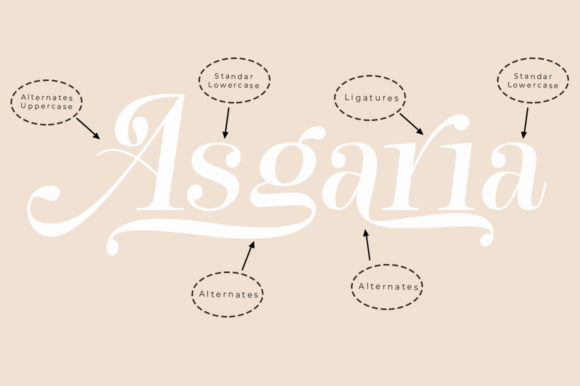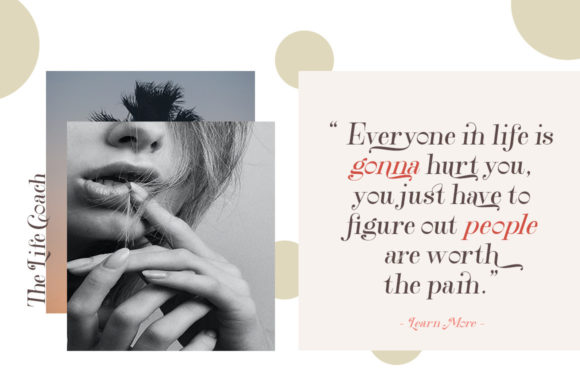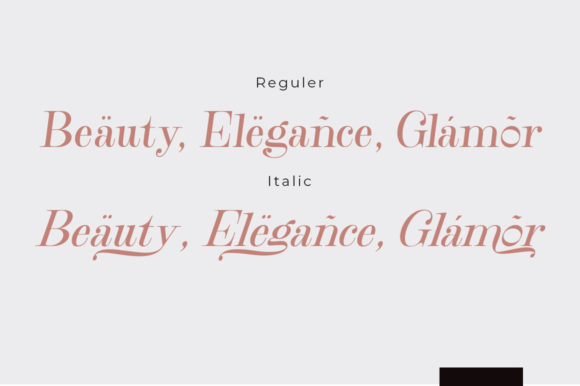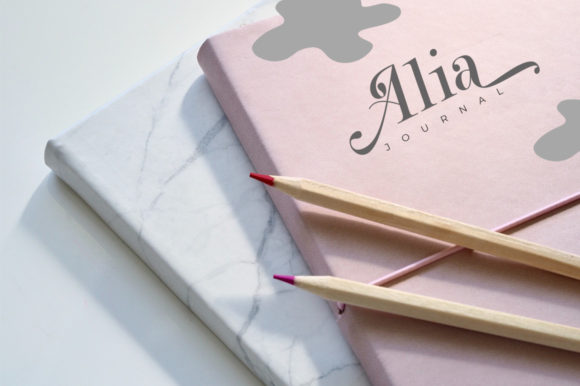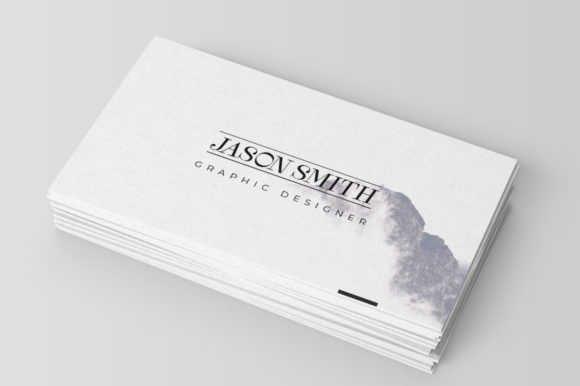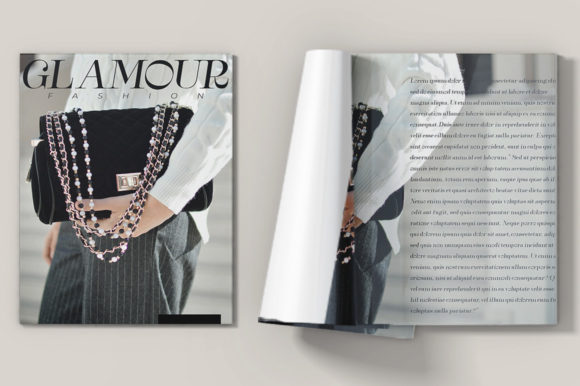
Introducing Asgaria Font: Elevate Your Designs with Elegance and Sophistication
In the world of typography, the right font can make all the difference in transforming a design from ordinary to extraordinary. For designers and crafters seeking a stylish and clean serif font that adds a touch of elegance and sophistication to their projects, Asgaria Font is an exceptional choice. This beautifully crafted font is not only aesthetically pleasing but also highly functional, making it a valuable addition to any designer’s toolkit.
What Makes Asgaria Font Stand Out?
Asgaria Font is a stylish and clean serif font that boasts a unique blend of classic elegance and modern sophistication. Its well-defined serifs and balanced letterforms make it perfect for a wide range of design applications, from luxury branding and high-end magazines to elegant wedding invitations and sophisticated digital interfaces.
PUA Encoding for Easy Access to Glyphs and Swashes
One of the key features that sets Asgaria Font apart is its PUA (Private Use Area) encoding. This means that users can access all glyphs and swashes with ease, allowing for greater flexibility and creativity in design. With PUA encoding, you can effortlessly insert special characters, ligatures, and swashes into your text, giving your designs a unique and personalized touch.
Why Choose Asgaria Font for Your Projects?
There are several reasons why Asgaria Font should be your go-to choice for your design projects:
- Versatility: Asgaria Font is suitable for a wide range of design applications, including print and digital media. Its clean and elegant design makes it perfect for body text, headings, and titles.
- High-Quality Design: Asgaria Font is meticulously designed to provide a high level of readability and aesthetic appeal, ensuring that your designs look professional and polished.
- Unique Touch: The font’s distinctive serifs and elegant swashes allow you to add a unique touch to your designs, setting them apart from the ordinary.
Tips for Maximizing the Impact of Asgaria Font
To get the most out of Asgaria Font, consider the following tips:
- Mix and Match: Combine Asgaria Font with other complementary fonts to create visual interest and hierarchy in your designs.
- Pay Attention to Spacing: Ensure that your text has adequate spacing for optimal readability. Adjust the tracking and kerning as needed.
- Highlight Key Elements: Use Asgaria Font’s swashes and glyphs to draw attention to key elements in your design, such as headings, quotes, or call-to-action buttons.
- Stay Consistent: For a cohesive look, use Asgaria Font consistently across your design project, whether it’s a website, brochure, or social media graphics.
Asgaria Font is a stylish and clean serif font that offers designers and crafters a versatile and elegant solution for their typography needs. With its PUA encoding, high-quality design, and ease of use, Asgaria Font is an excellent addition to any design project. By incorporating Asgaria Font into your designs, you can elevate your work with a touch of sophistication and elegance, ensuring that your projects stand out and leave a lasting impression.